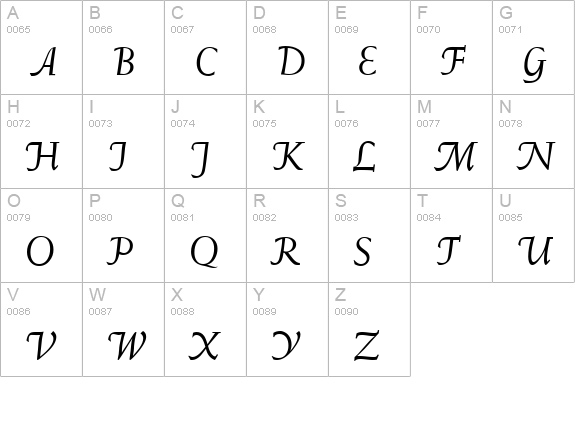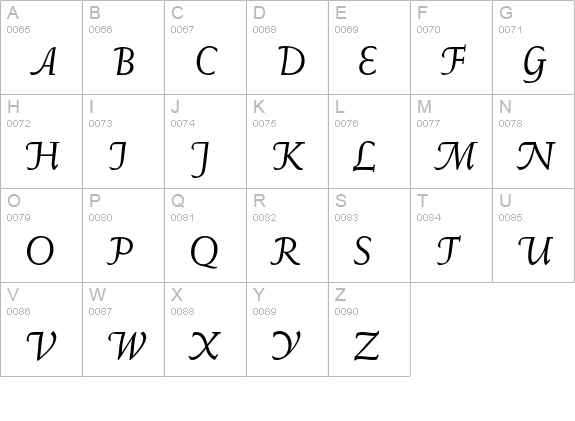
W690-Roman-Italic is a distinctive, italic variant in the W690 typeface family \xE2\x80\x94 well suited to design and typography projects.
The W690-Roman-Italic font is a stunning and elegant typeface that exudes sophistication and style. Its sleek and modern design makes it perfect for a wide range of projects, from branding to editorial design. The italicized letters add a touch of flair and grace, making this font a versatile choice for both digital and print applications. What makes the W690-Roman-Italic font even more appealing is that it is completely free to download at FontsMarket.com. This means you can easily access this beautiful typeface without any cost, making it a valuable addition to your font collection. Whether you're working on a professional project or a personal creative endeavor, the W690-Roman-Italic font is sure to elevate your designs with its timeless beauty and sophistication. Download it today and see the difference it can make in your work!